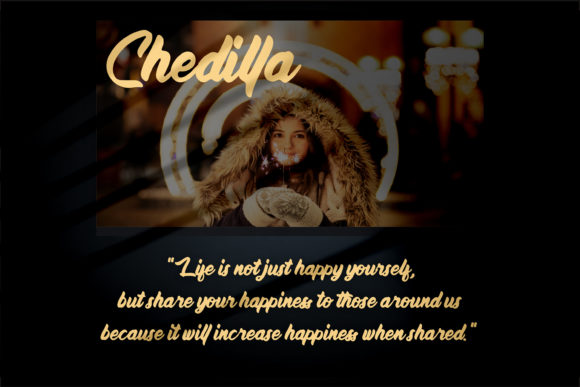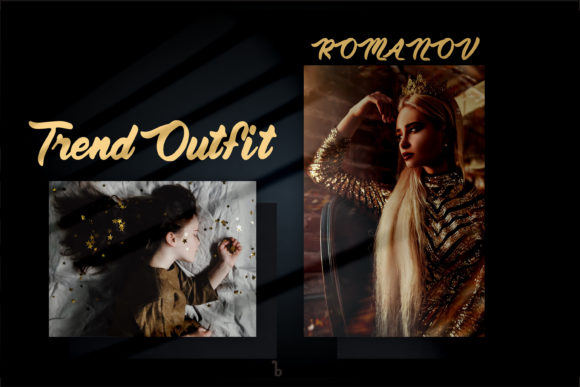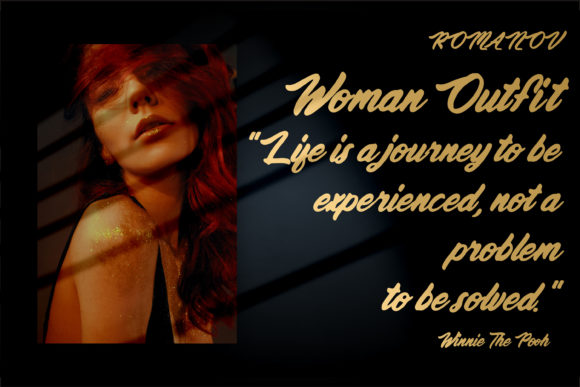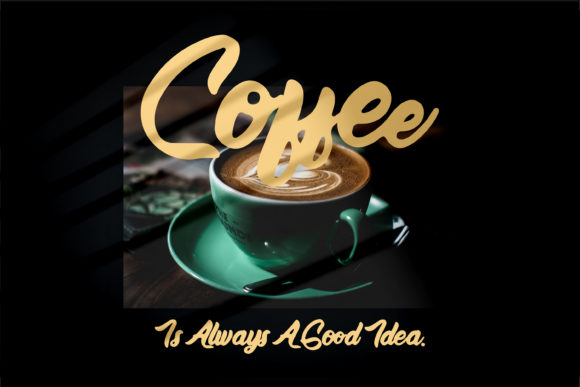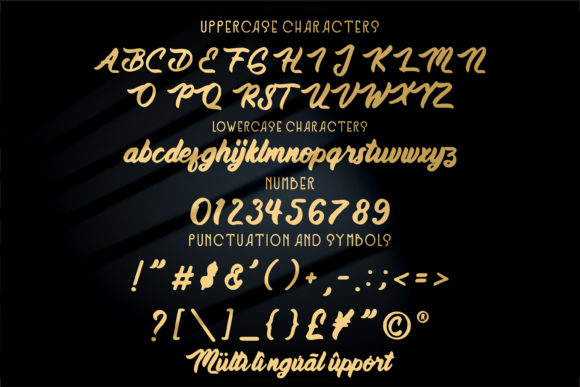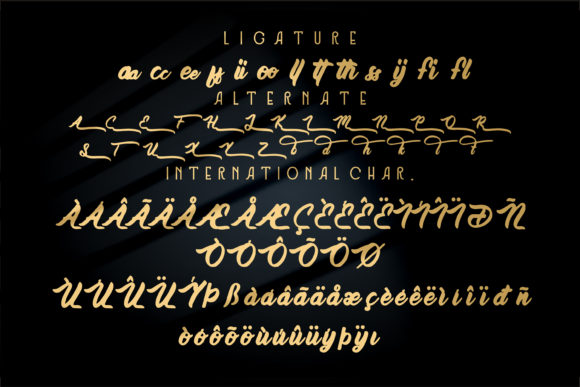
Chedillla Font: Elevate Your Designs with a Bold Handwritten Style
Are you looking for a font that can add a touch of luxury and sophistication to your designs? Look no further than Chedillla, a bold handwritten font that’s perfect for a wide range of projects. From logos and branding to homeware designs, product packaging, and more, Chedillla is the ideal choice for designers and crafters who want to make a statement.
What is Chedillla Font?
Chedillla is a bold, handwritten font that’s designed to bring a sense of elegance and refinement to your designs. With its flowing lines and luxurious feel, this font is perfect for projects that require a high-end look and feel. Whether you’re working on a logo, a poster, or a product label, Chedillla is sure to make your design stand out.
What Makes Chedillla Font So Versatile?
One of the things that sets Chedillla apart from other fonts is its versatility. This font can be used for a wide range of projects, including:
- Logos and branding projects
- Homeware designs
- Product packaging
- Mugs and ceramics
- Quotes and posters
- Shopping bags and t-shirts
- Book covers and name cards
- Invitation cards and greeting cards
- Labels and photography
- Watermarks and special events
Whether you’re working on a personal project or a client’s, Chedillla is the perfect choice for any design that requires a touch of luxury and sophistication.
The Benefits of Chedillla Font
So why choose Chedillla font for your next project? Here are just a few benefits of using this amazing font:
- Unique and eye-catching: Chedillla is a bold and eye-catching font that’s sure to make your design stand out from the crowd.
- Luxurious feel: This font has a luxurious feel that’s perfect for high-end designs and projects that require a touch of sophistication.
- PUA encoded: Chedillla is PUA encoded, which means you can access all of the glyphs and swashes with ease.
Tips for Getting the Most Out of Chedillla Font
Here are a few tips for getting the most out of Chedillla font:
- Experiment with different sizes: Chedillla looks great in a variety of sizes, so don’t be afraid to experiment and find the perfect size for your design.
- Pair it with other fonts: Chedillla looks great when paired with other fonts, so try combining it with a sans-serif font for a contrasting look.
- Use it for headlines: Chedillla is perfect for headlines and titles, so use it to add a touch of luxury and sophistication to your design.
Chedillla font is a bold and luxurious handwritten font that’s perfect for designers and crafters who want to add a touch of sophistication to their designs. With its versatility, ease of use, and luxurious feel, this font is sure to become a favorite in your design arsenal. So why wait? Download Chedillla font today and start creating stunning designs that will leave a lasting impression.